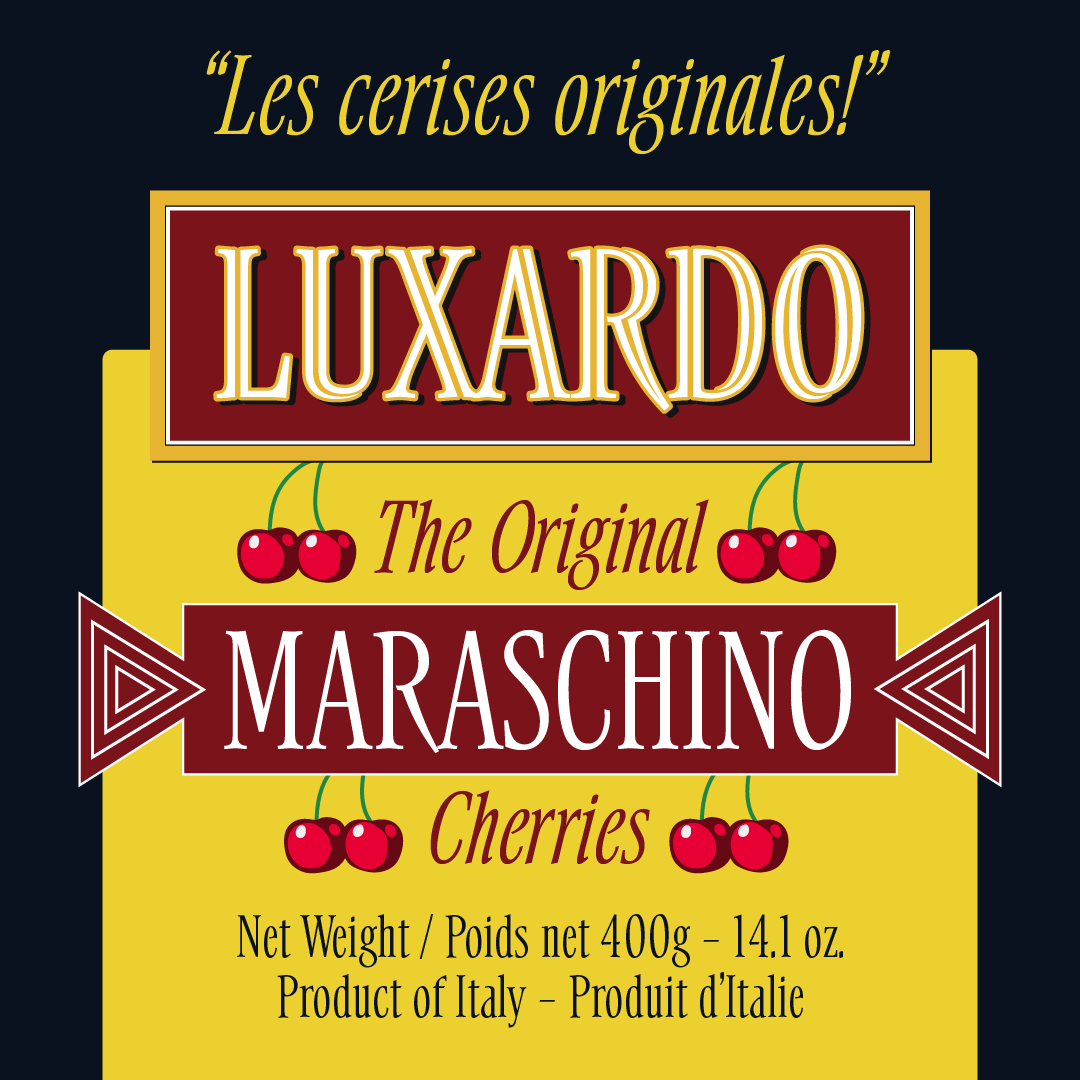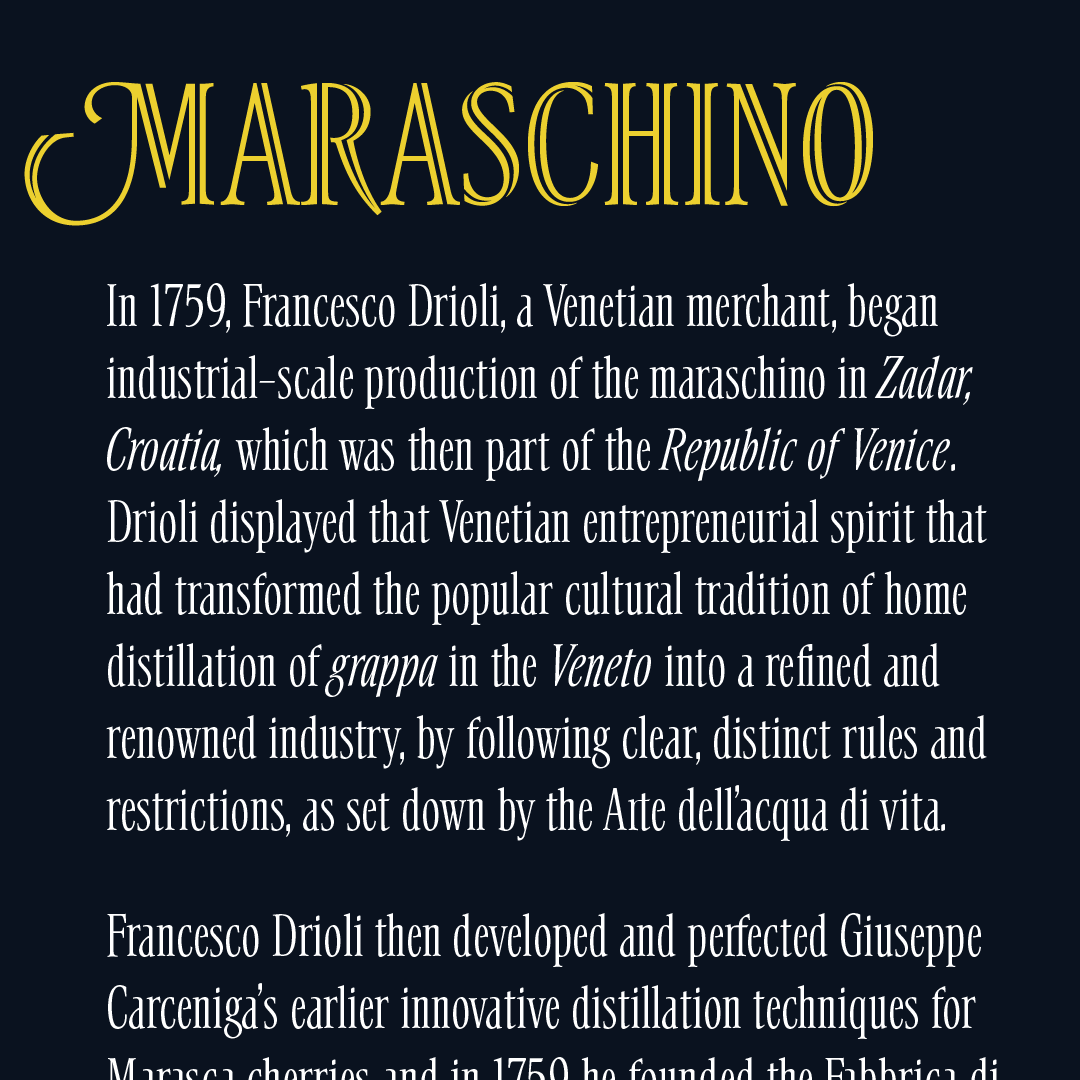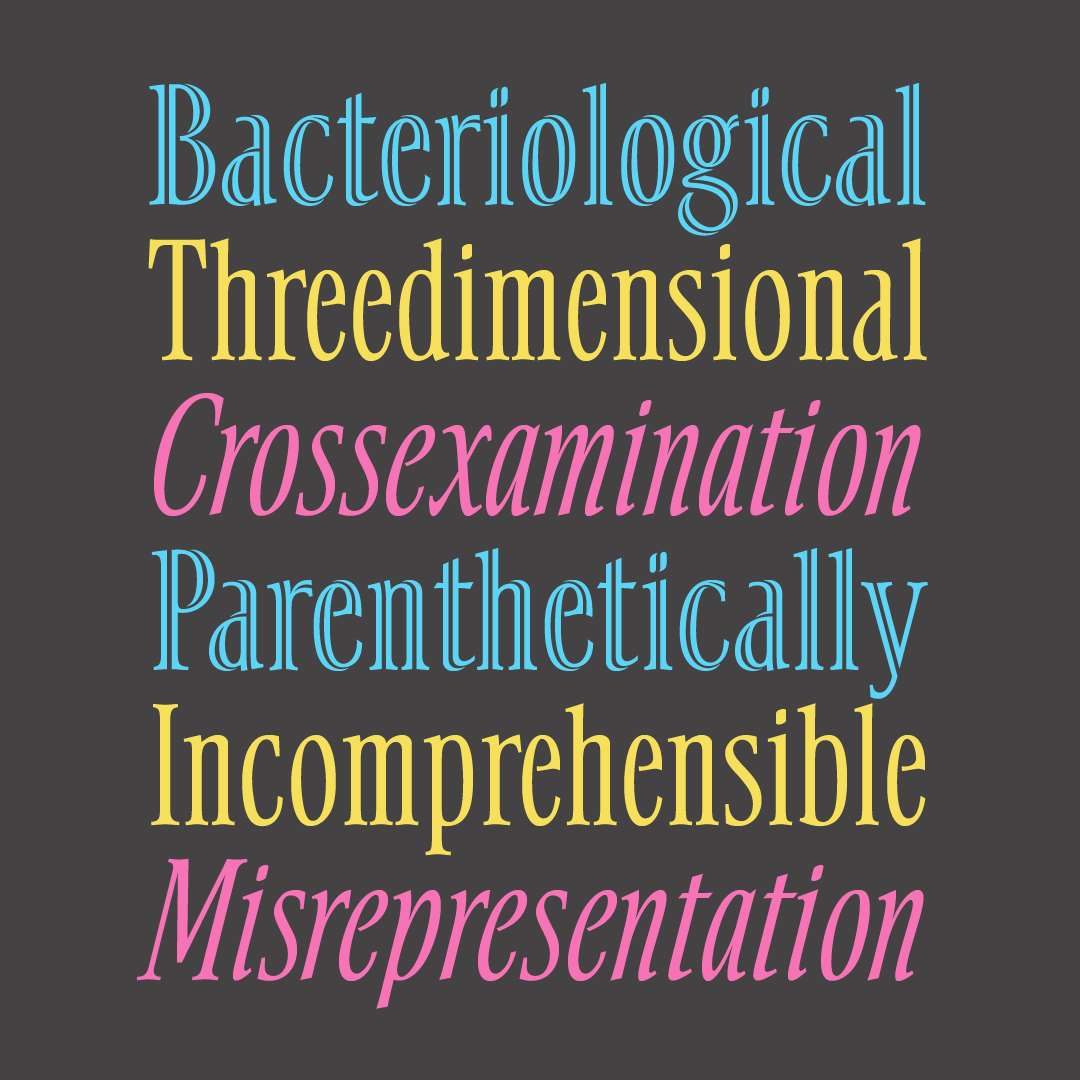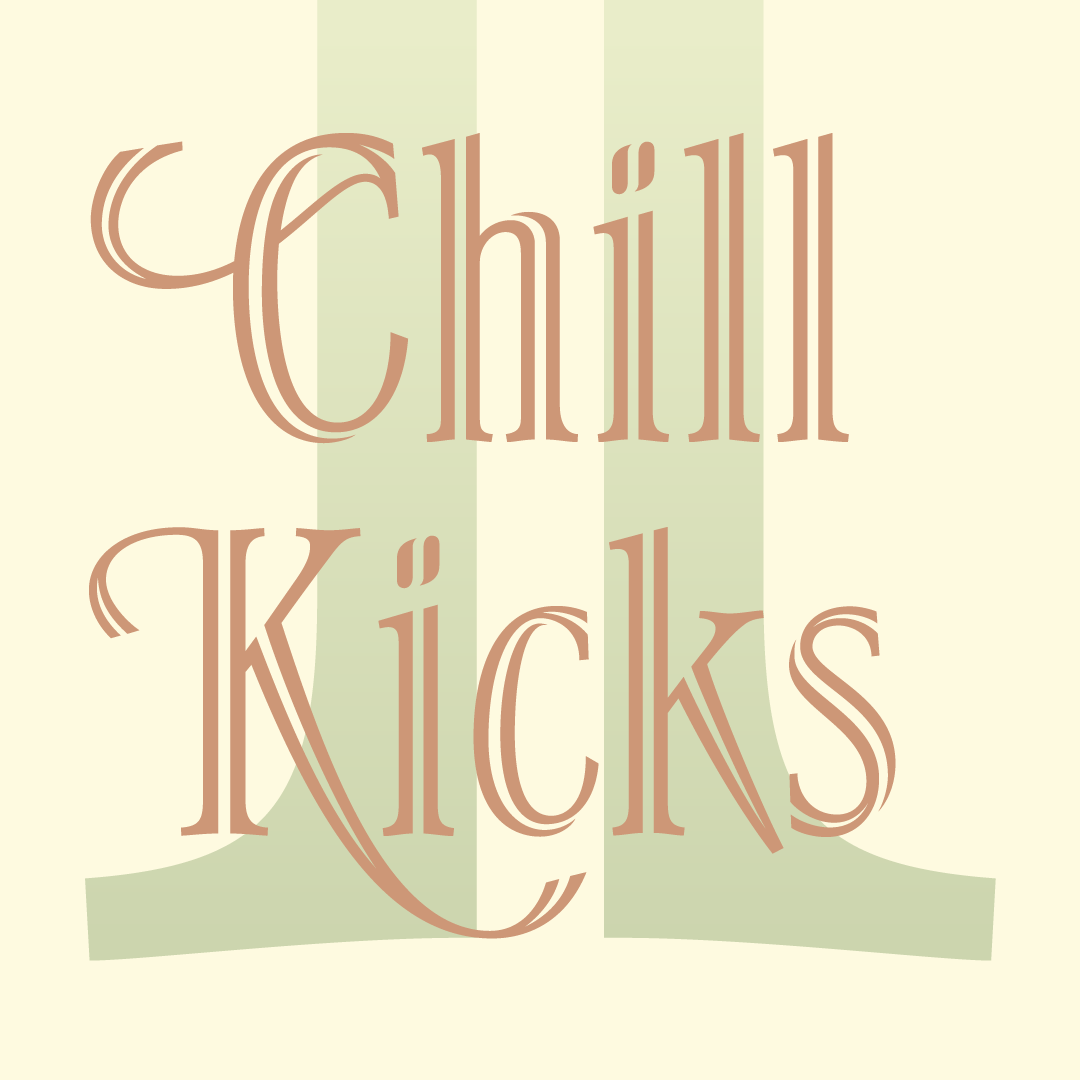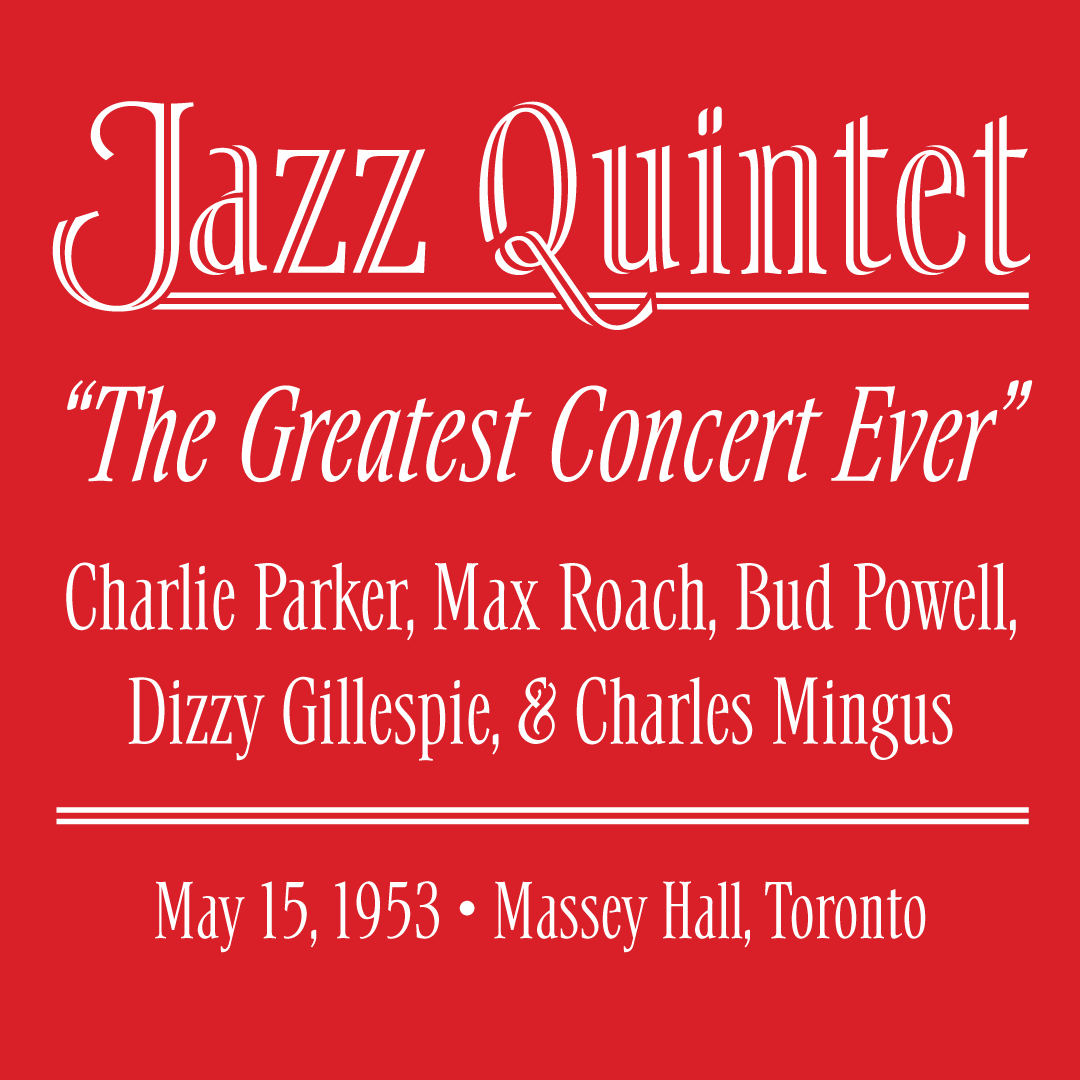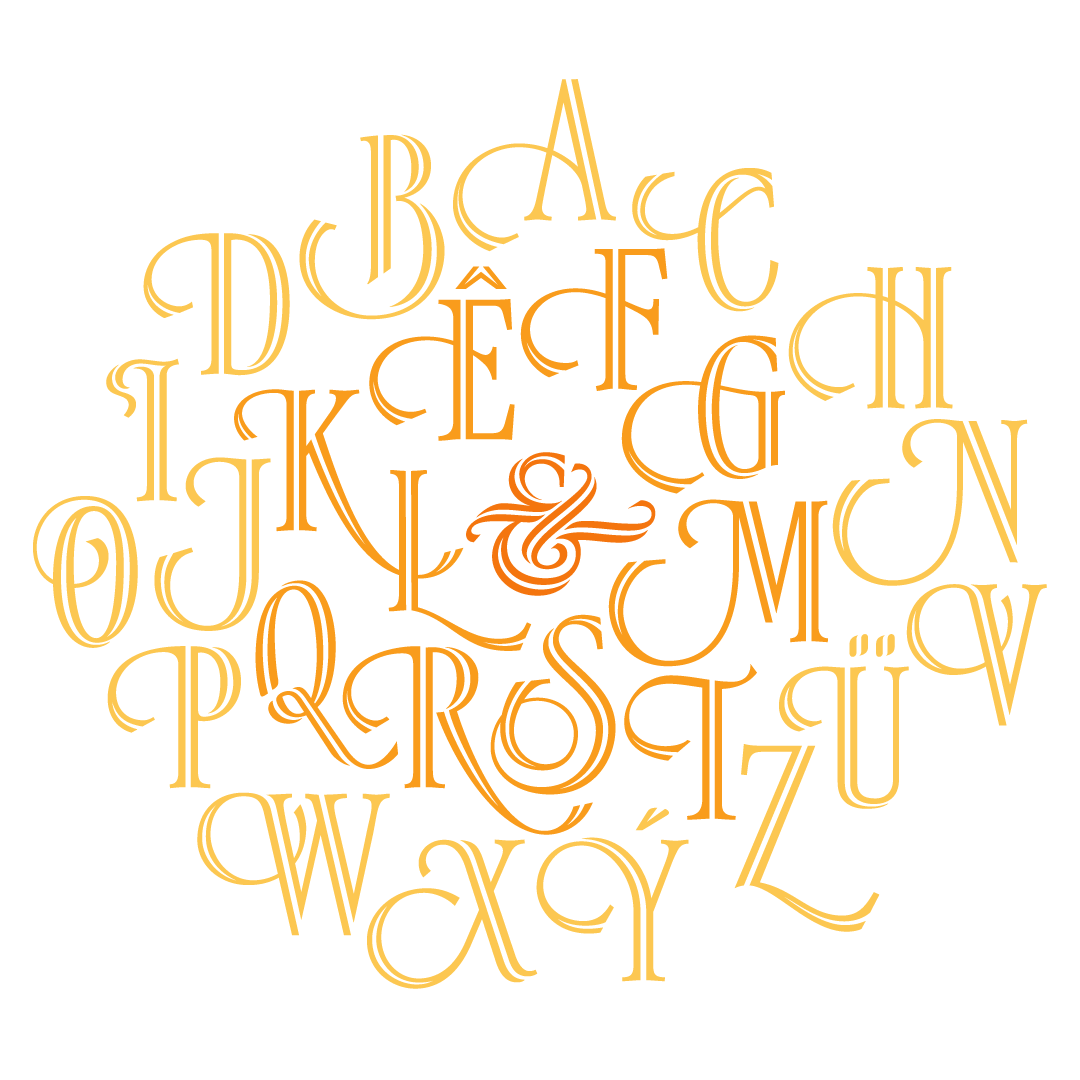
Summa®
A lofty, elegant typeface
with a stunning inline style.
Designed by Don Sterrenburg
Don Sterrenburg is truly a master with pen and ink. His wealth of knowledge and considerable experience were brought to bear in creating Sterrenburg’s first digital typeface, Summa. Delve Fonts worked very closely with Sterrenburg for years to diligently transform his magnificent pen and ink drawings on illustration board into modern font software, sending type specimens and early versions of working fonts for review and then faithfully completing the revisions he requested after carefully examining the materials.
“There was real excitement with the arrival of each shipment of new art from Don,” relates Delve Withrington, principal at Delve Fonts. He continues: “It was a pleasure to work with Don because the physical artwork he prepared for production of the digital typeface was confident, and precise — leaving no room to misinterpret the intent.”
The resulting typeface is a testament to the effort of everyone involved. The classic roman spirit and bracketed, cupped serifs together with the narrow width and elevated x-height of Summa give it a lofty, elegant appearance and an economic use of space. The ‘true italic’ counterpart style — not simply slanted or oblique — with its more calligraphic form is a well-balanced and thoughtful adaptation of the regular design.
Summa Inline is a fascinating stylistic variation that takes the design of Summa to another place entirely. It is a complete re-imagining of the structure of the forms found in the regular. The inline seemingly twists in places, dropping out where strokes cross over each other creating an almost three dimensional, ribbon-like appearance. In addition, the inline variant of Summa includes a set of swash capital letters that allow designers to easily give their setting that extra little dash of calligraphic flare and exuberance.